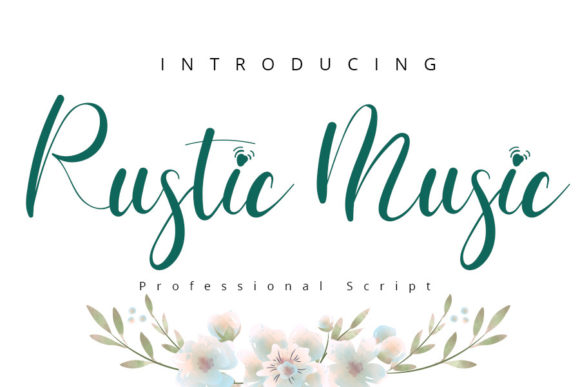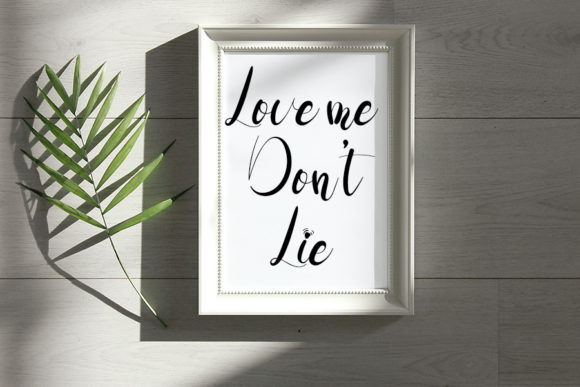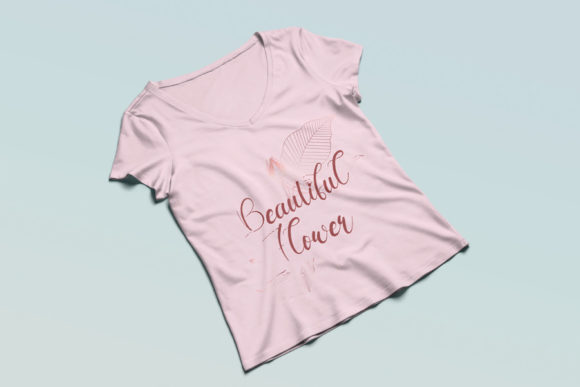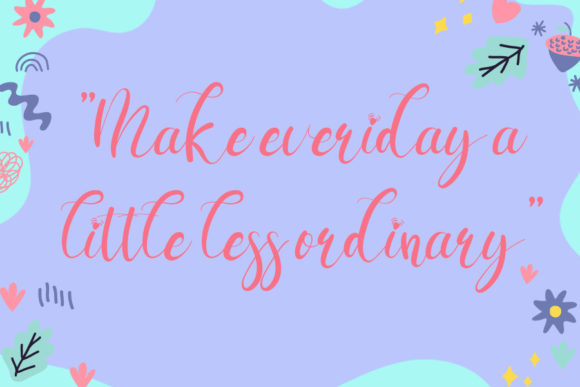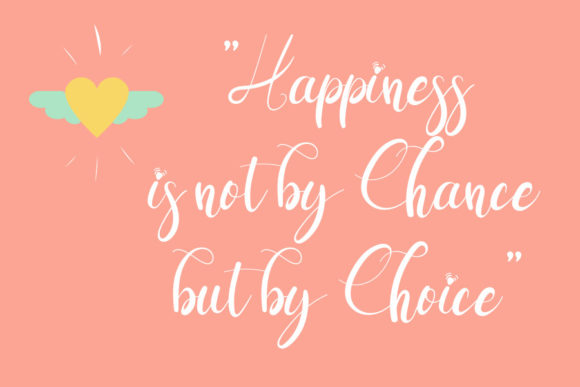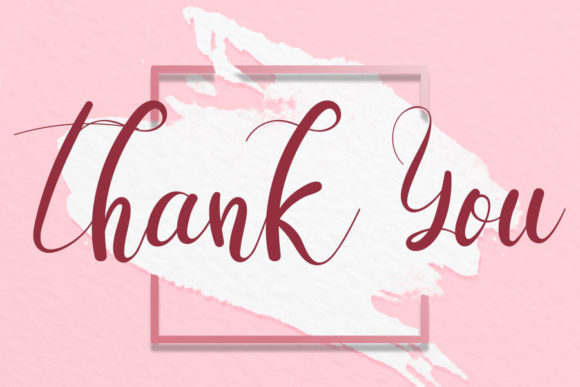
Rustic Music Font
About Rustic Music Font
Rustic Music is an awesome script font that’s neatly crafted and highly detailed. Whatever the theme, this font would be a wonderful complement to your font library, as it has the potential to enhance any creation!